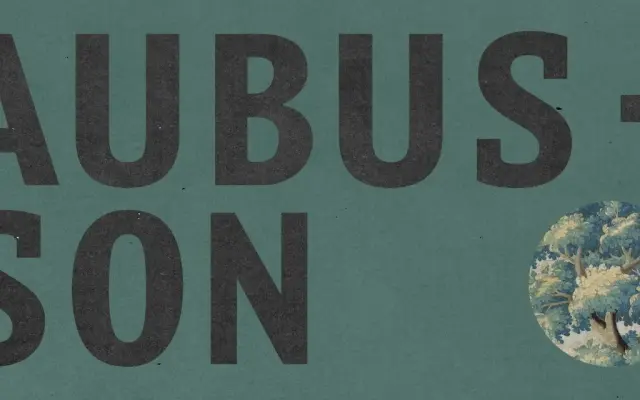
Aubusson
Black Foundry · Franck Jalleau
A monospaced humanist sans by Franck Jalleau, its fixed-width rhythm drawn from the grid-like structure of Aubusson tapestry weaving.
Designed by Franck Jalleau and refined by Black Foundry, it applies the regular interlocking geometry of French tapestry weaving to a monospaced humanist sans. Calligraphic warmth in the stroke modulation softens what could otherwise feel austere, making it readable at small text sizes as well as expressive at display scale. The family ships with variable fonts across Light to Black, matching italics, small capitals, oldstyle figures and a set of arrow ligatures via stylistic sets.
Explicitly described as a monospaced humanist sans serif; the fixed-width structure is central to the concept, drawing on the grid-like geometry of woven textiles while retaining calligraphic warmth in the letterforms.